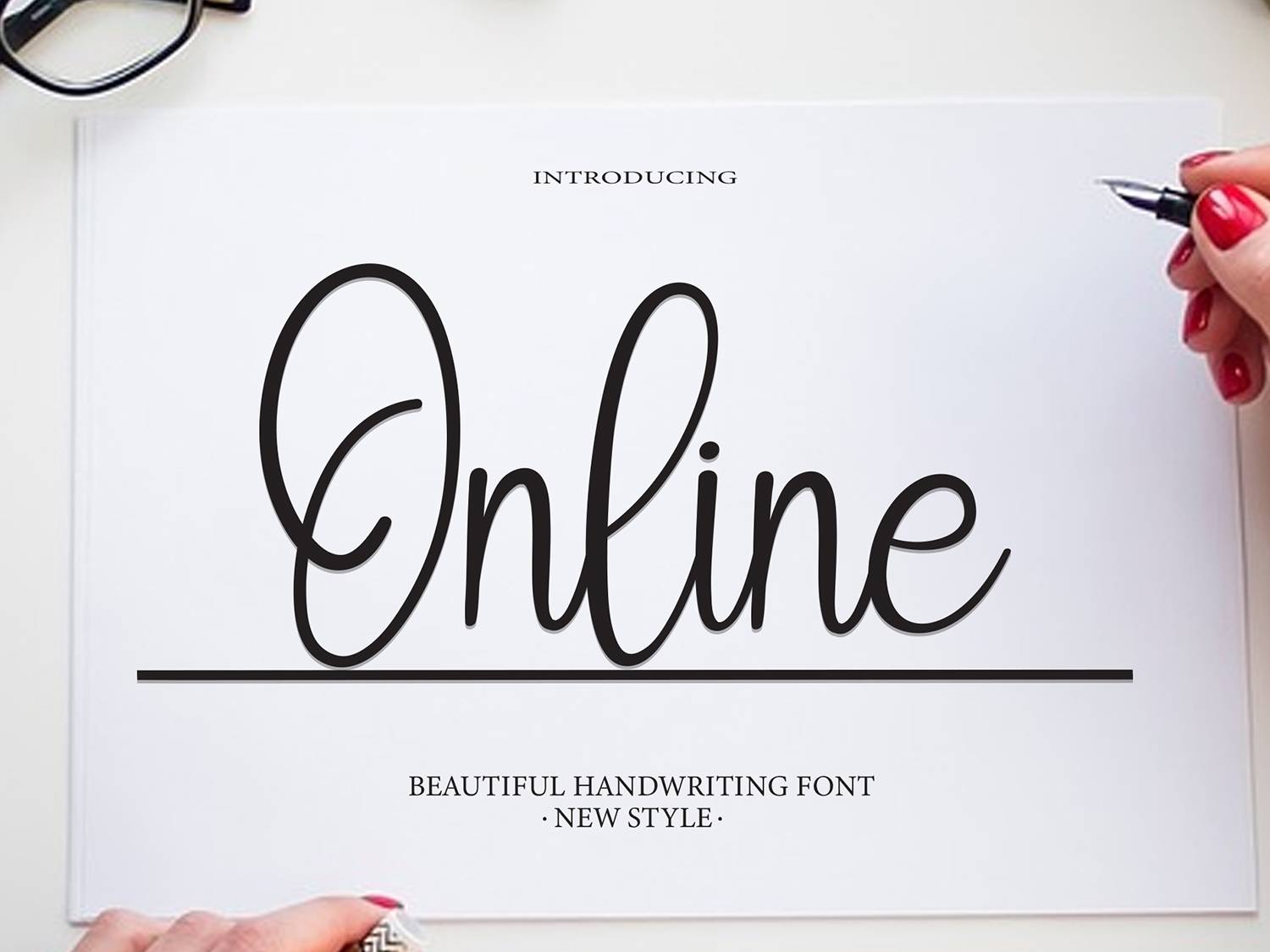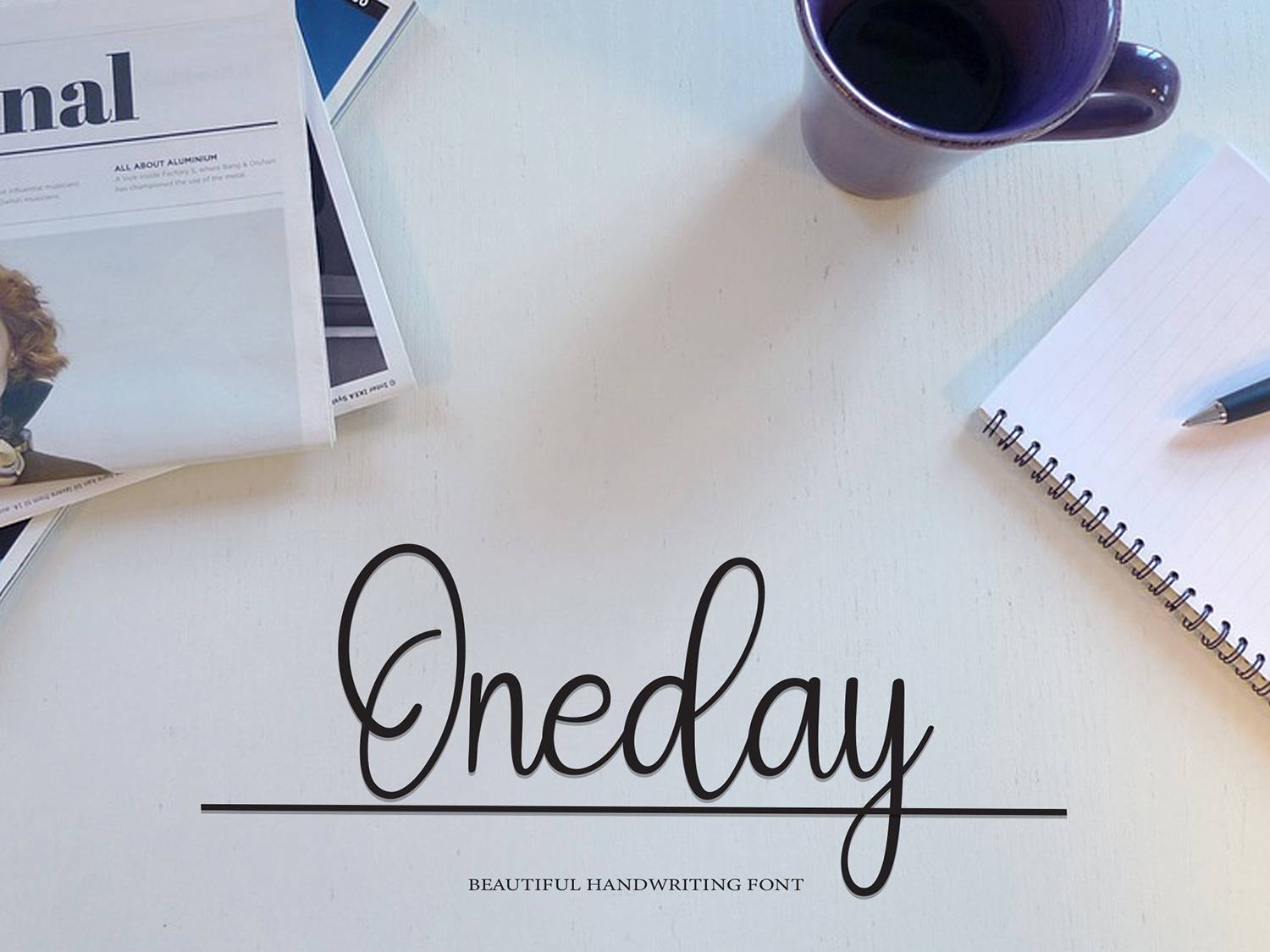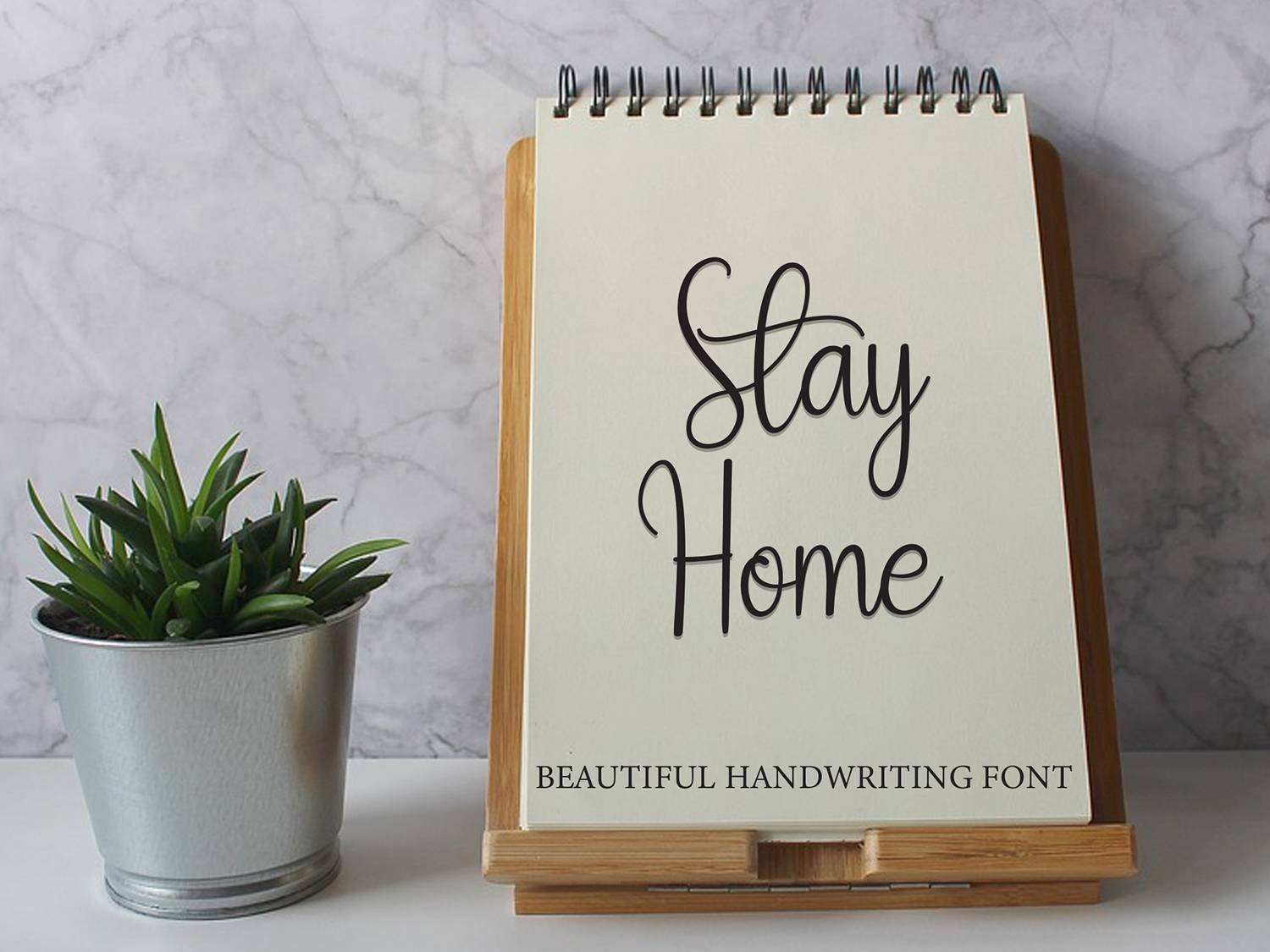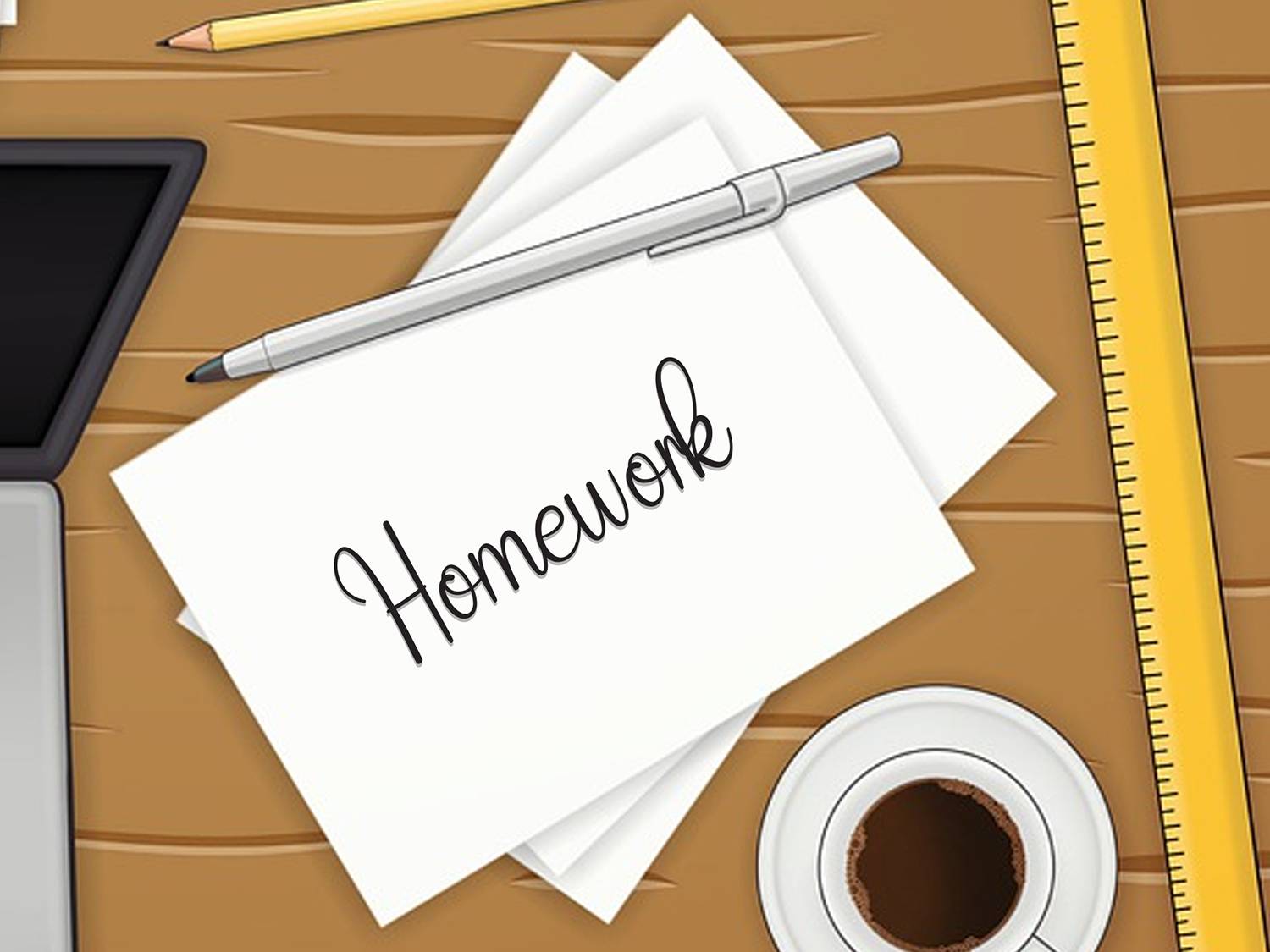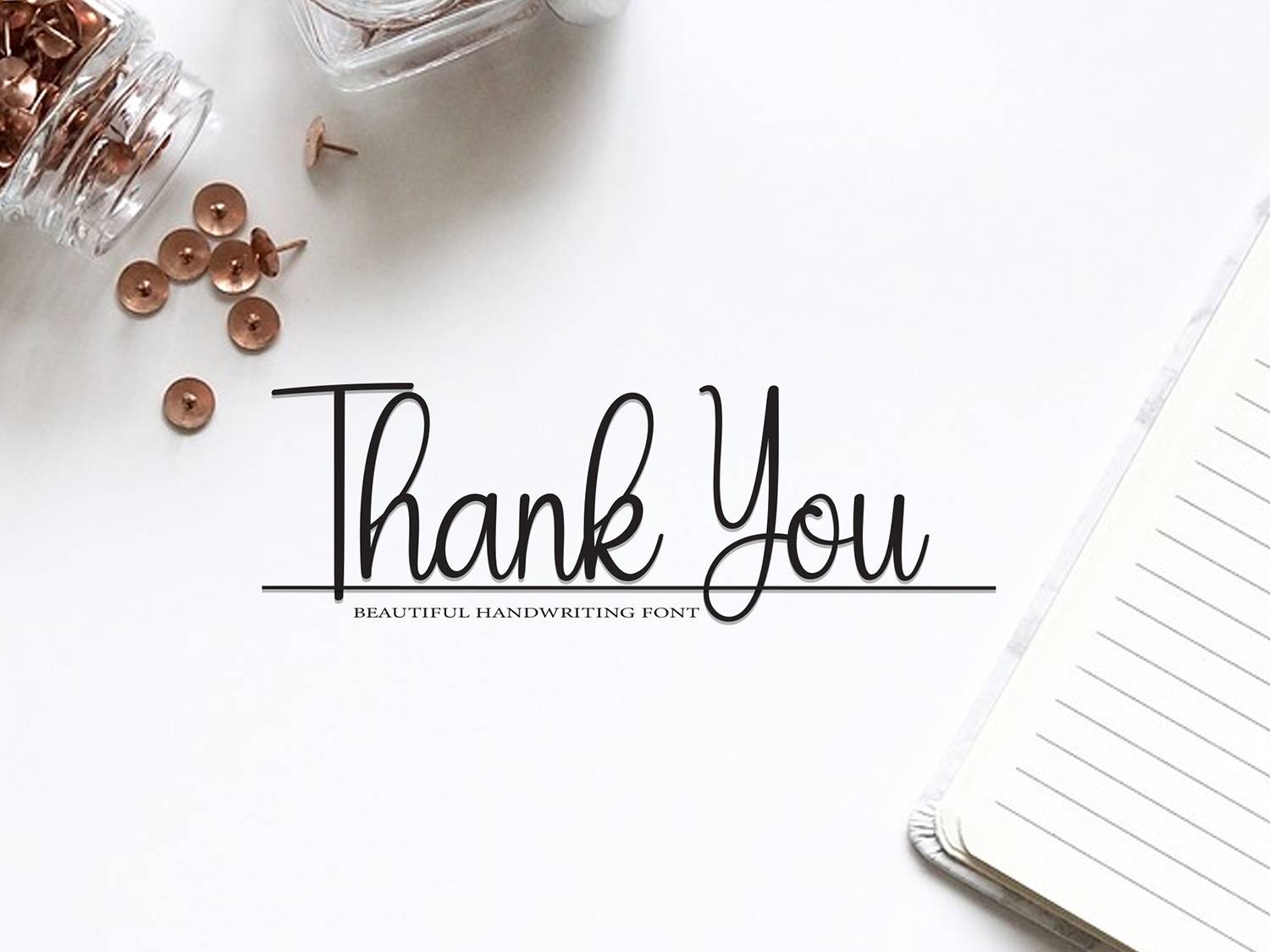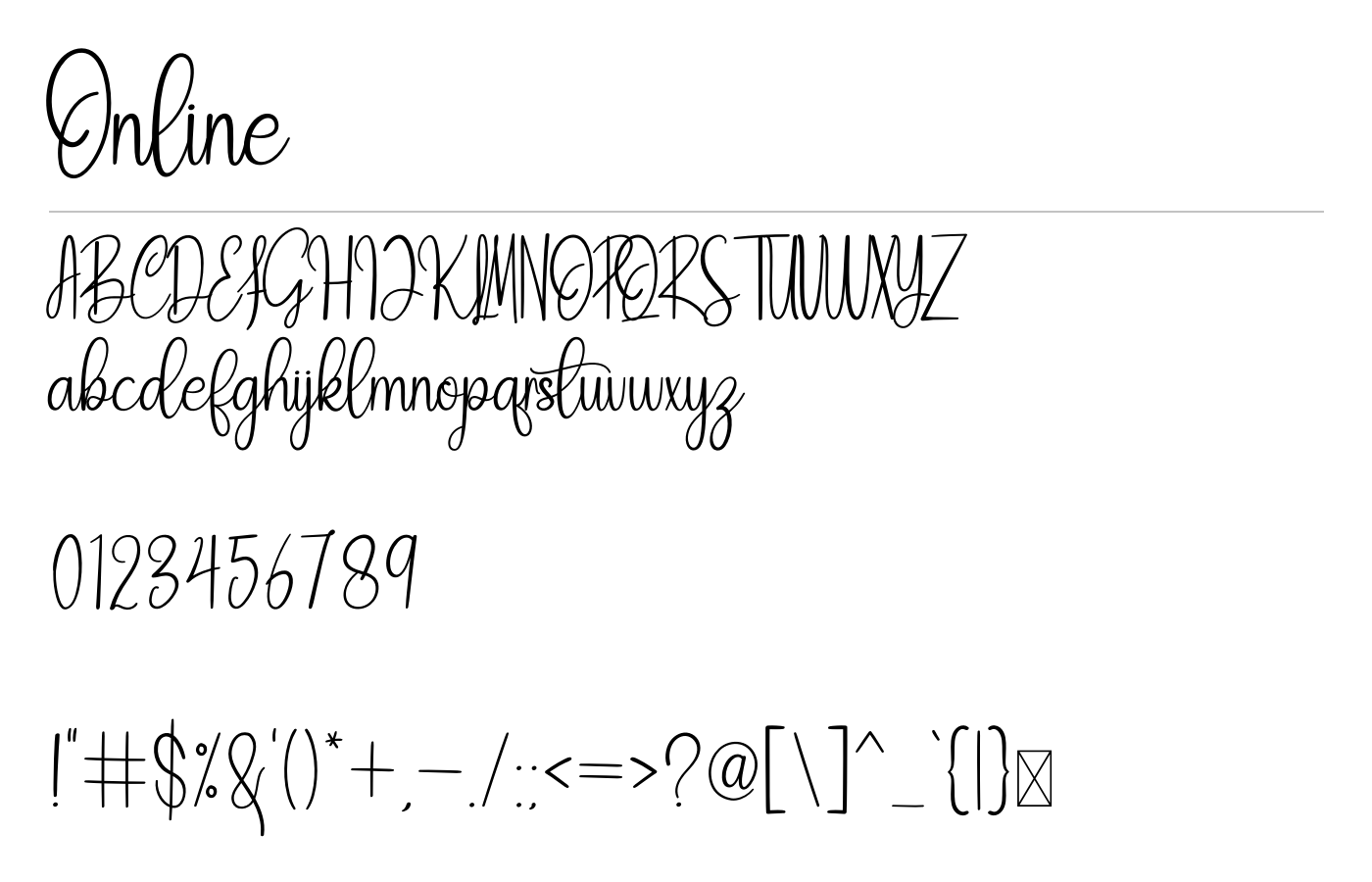
Online Font is a slender, handwritten script typeface with a playful yet elegant feel, characterized by its tall, narrow letterforms and delicate, fluid strokes. Its casual and airy design makes it ideal for creative projects like invitations, branding, and social media, where a personal and approachable touch is desired.
Online Font
About Online Font